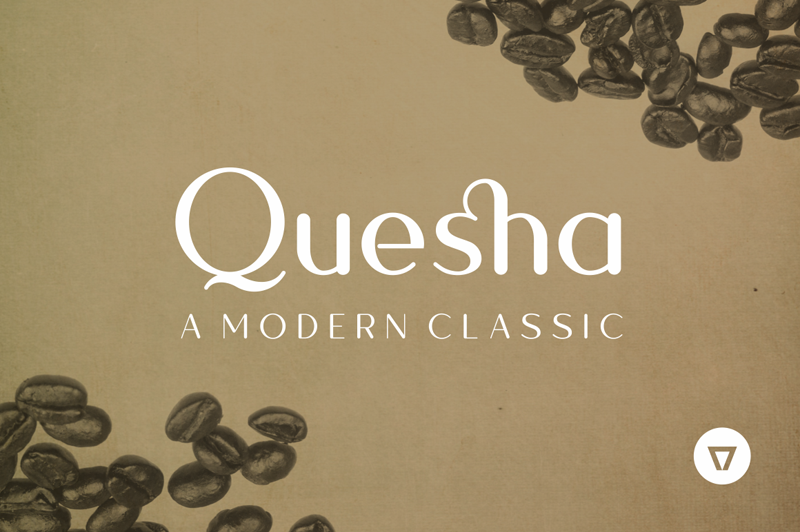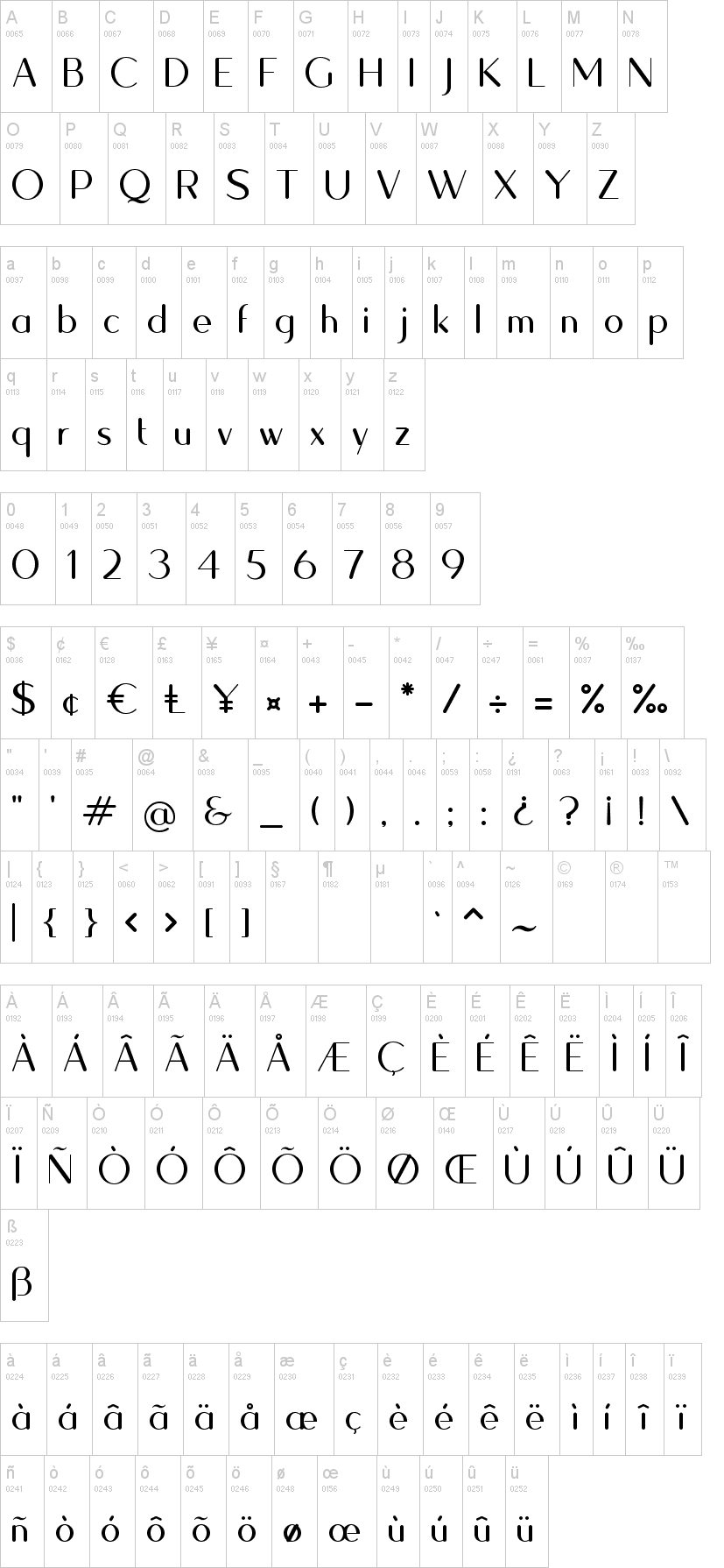
Note of the authorBorn from a modular font project, Quesha mixes a geometric construction with pure organic exceptions. Contrasted, readable, elegant and friendly, Quesha is a modern classic.
It features a complete character set, including standard and discretionary ligatures.